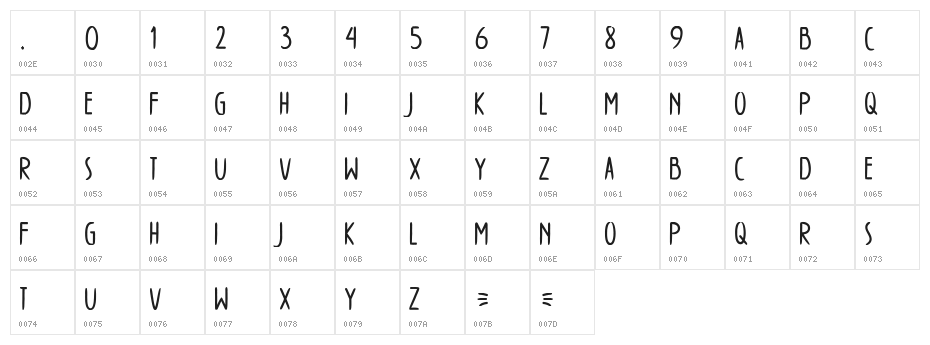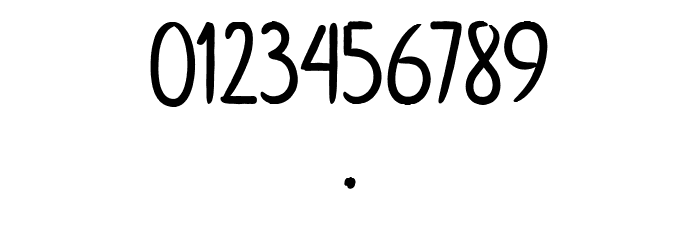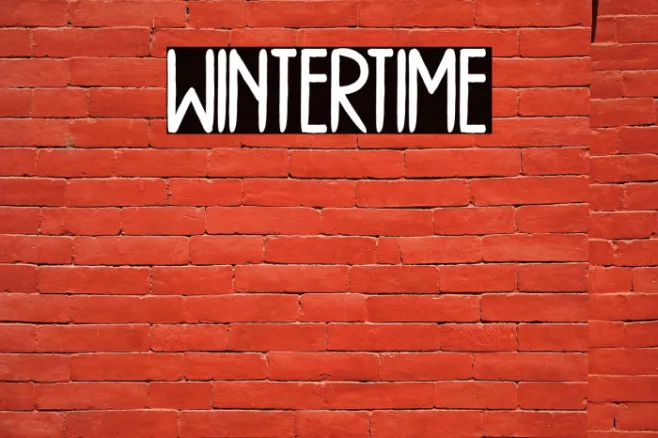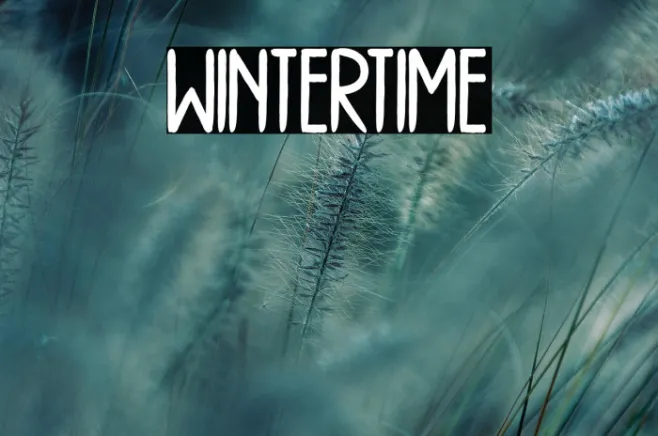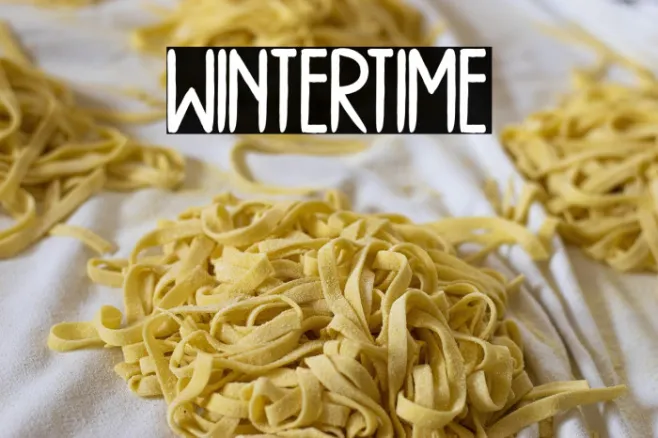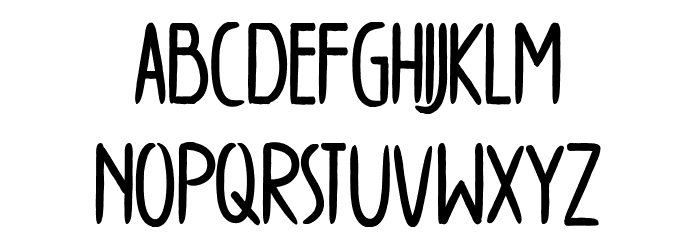
WINTERTIME Font
WINTERTIME Description
This font features a playful and slightly whimsical design, characterized by its rounded, elongated letterforms and consistent stroke width. The uppercase letters are tall and narrow, giving a sense of elegance and modernity. The lowercase letters mirror this style, maintaining a cohesive look throughout. The numerals are clear and easy to read, matching the overall aesthetic of the font. This typeface exudes a friendly and approachable vibe, making it suitable for a variety of creative projects. Its unique style can add a touch of personality to any design, while still maintaining readability.